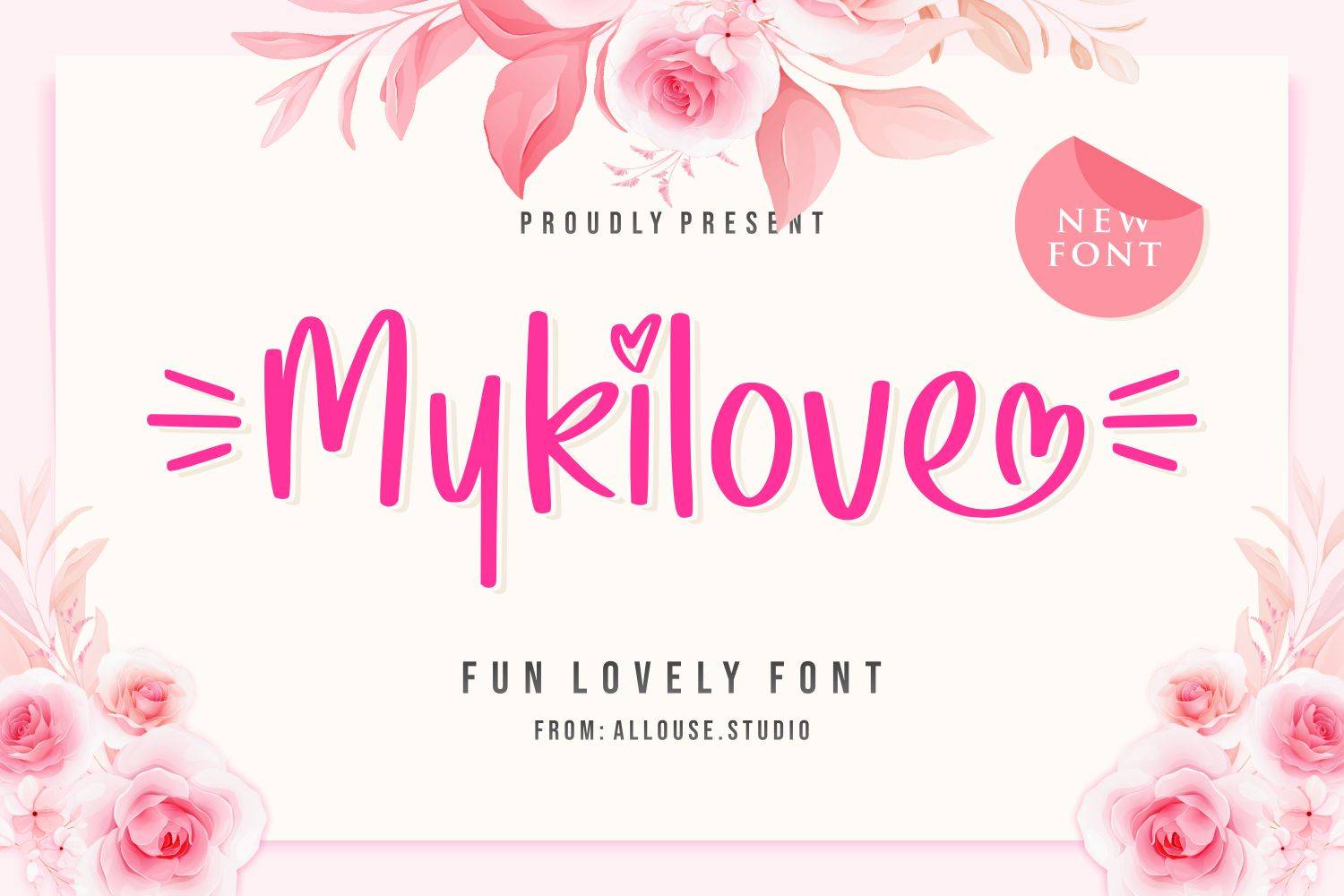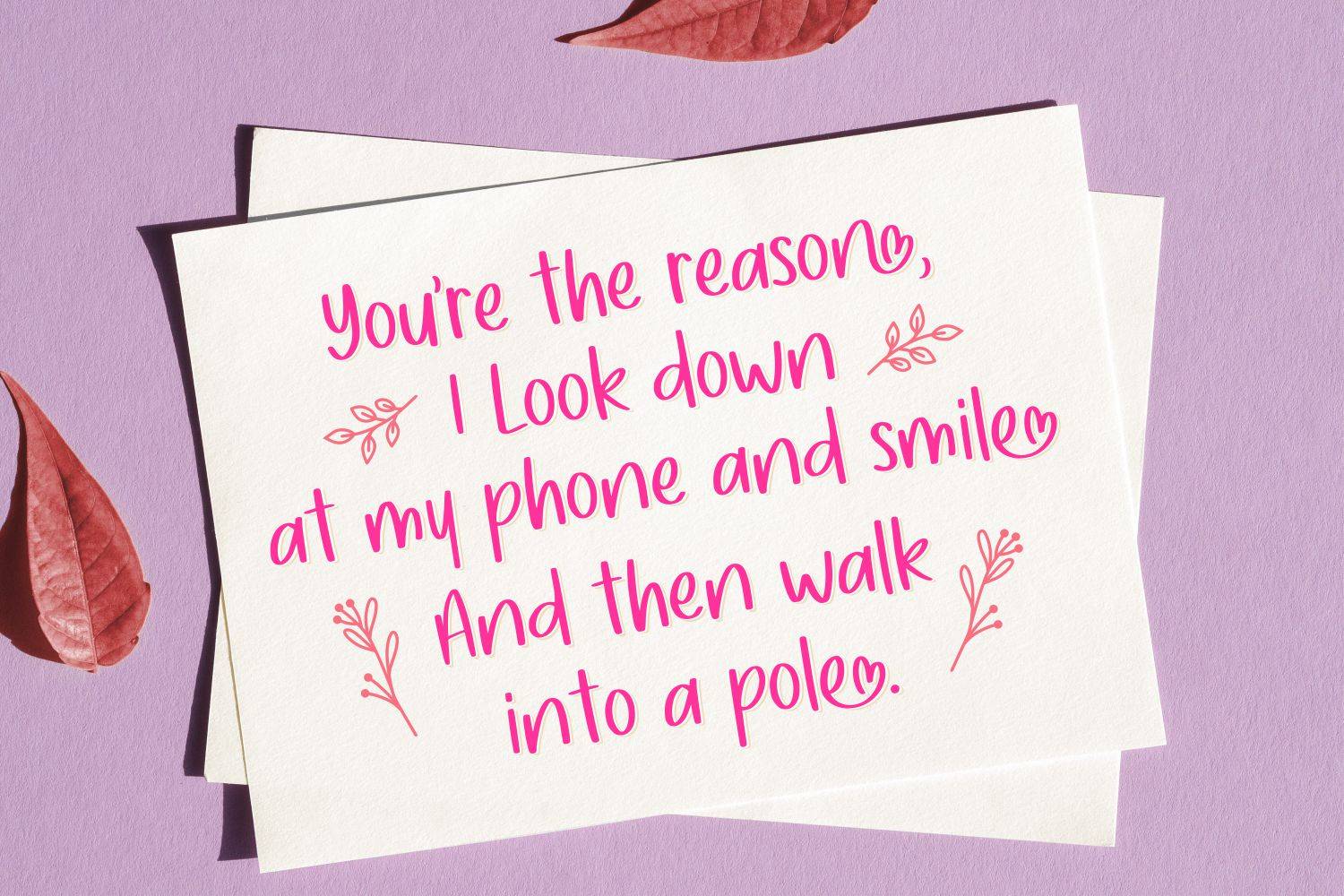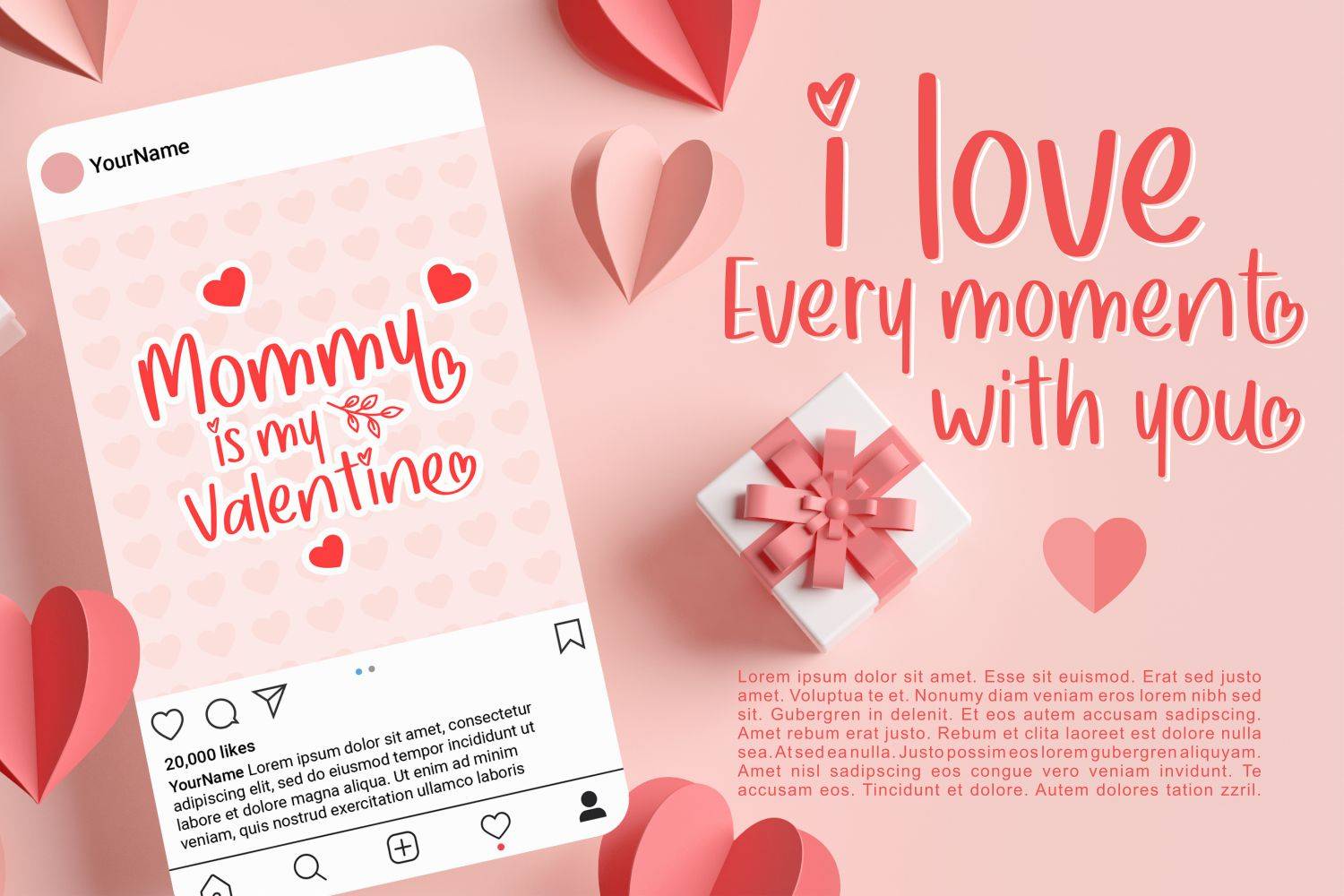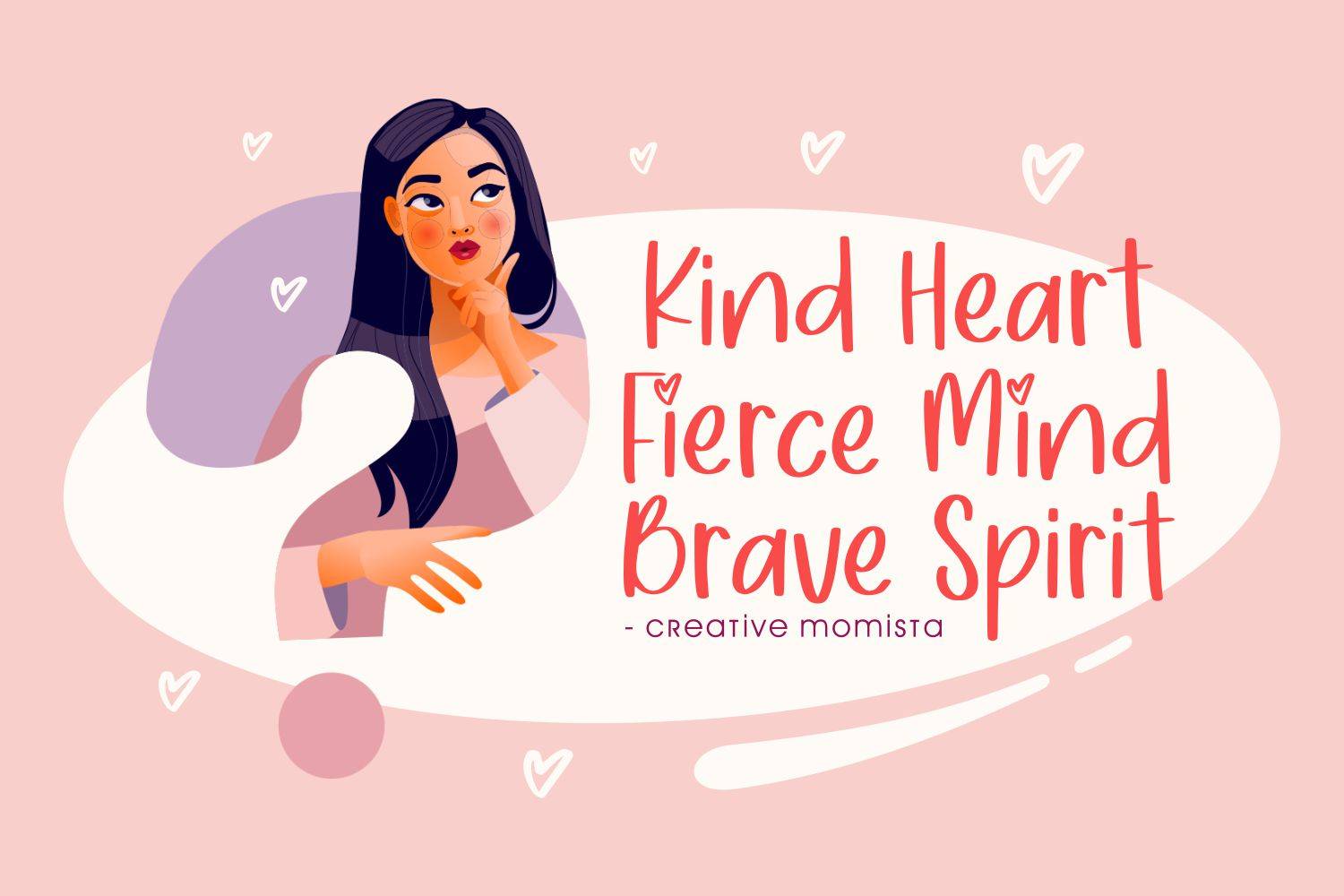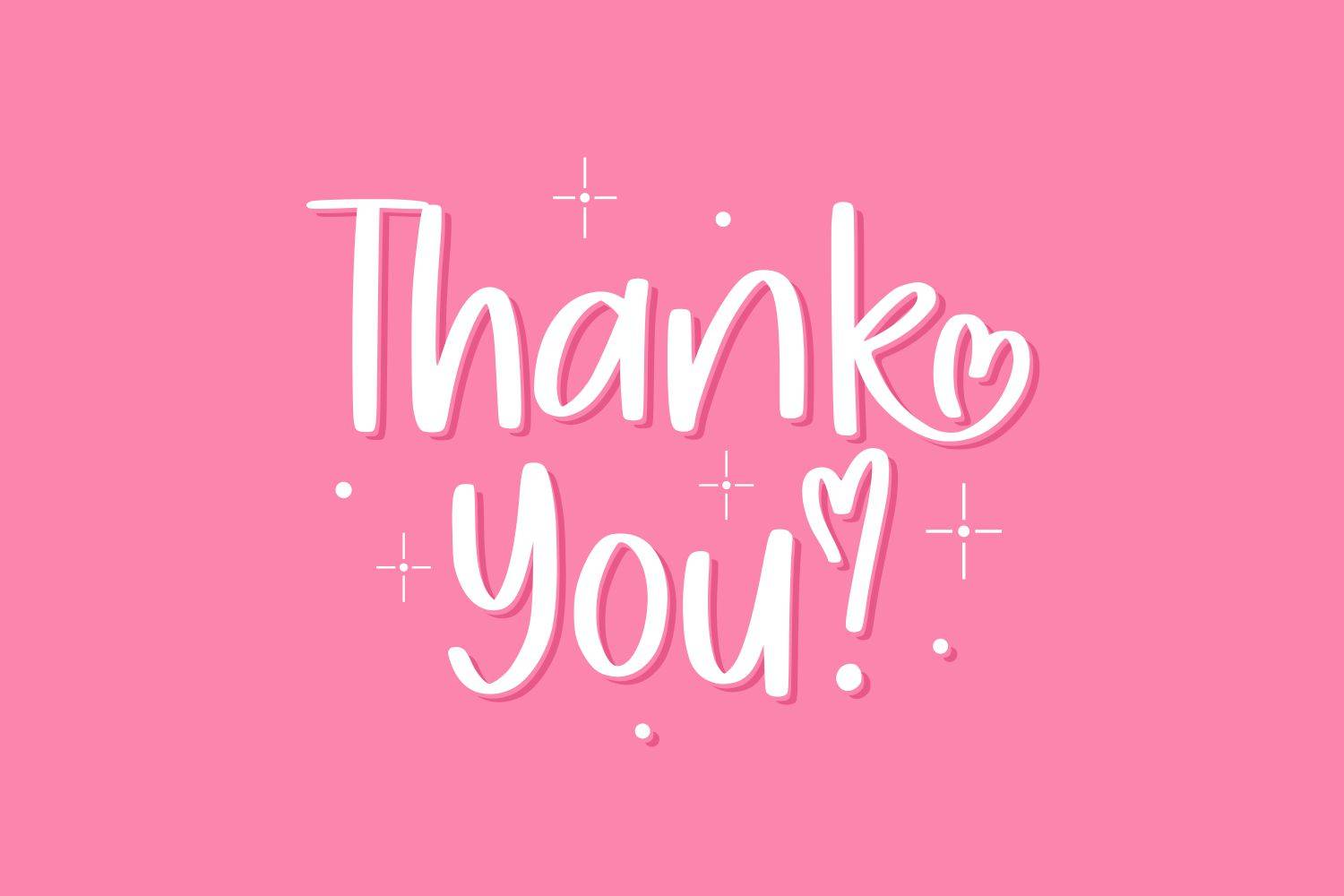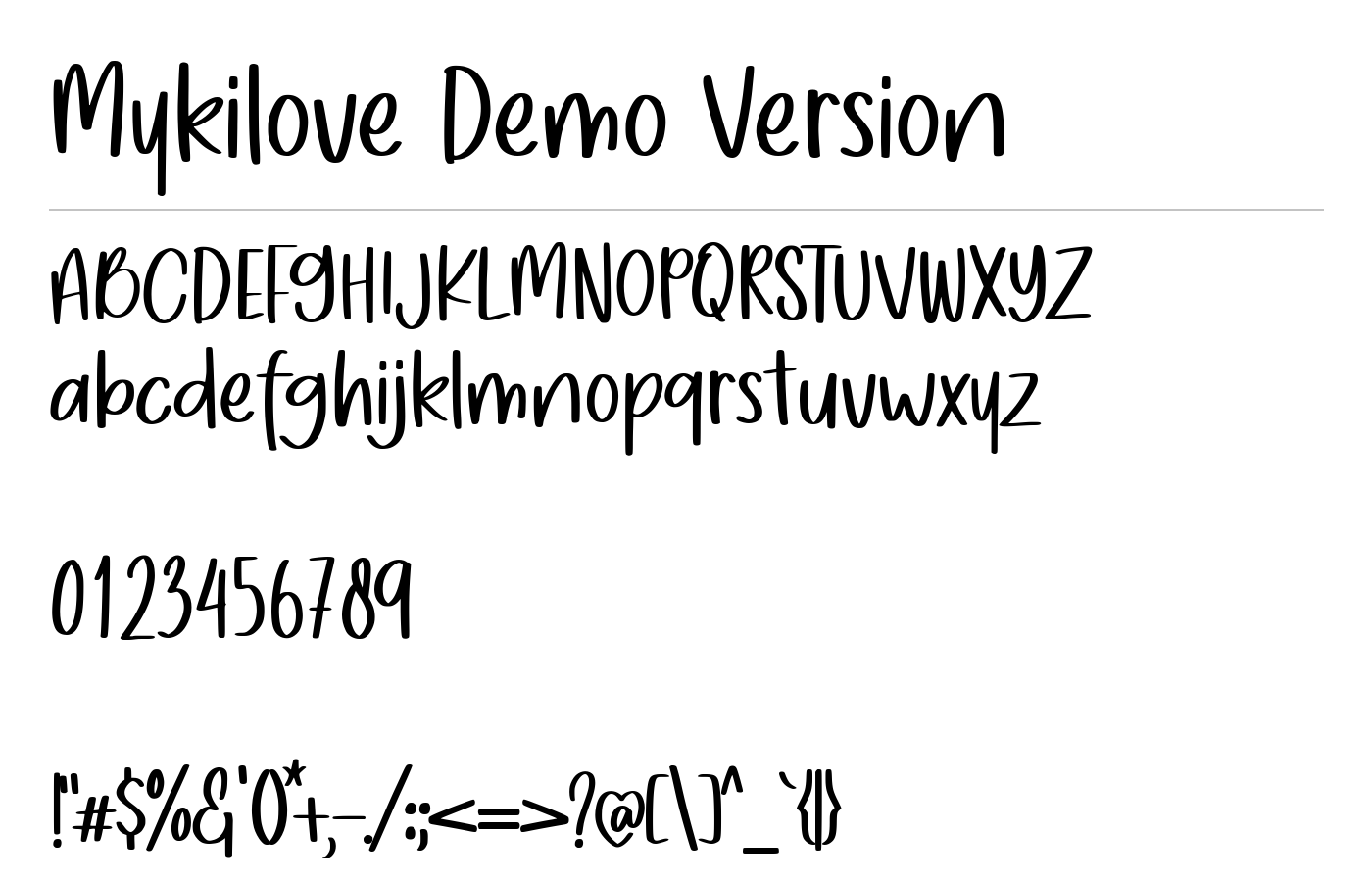
Mykilove Font is a lively, handwritten sans serif with a friendly and casual vibe. Its tall, slightly condensed letterforms and consistent stroke weight give it a neat yet informal look, making it perfect for personal projects, playful branding, and creative headlines. This font works well where a warm, approachable style is desired without sacrificing readability.
Mykilove Font
About Mykilove Font